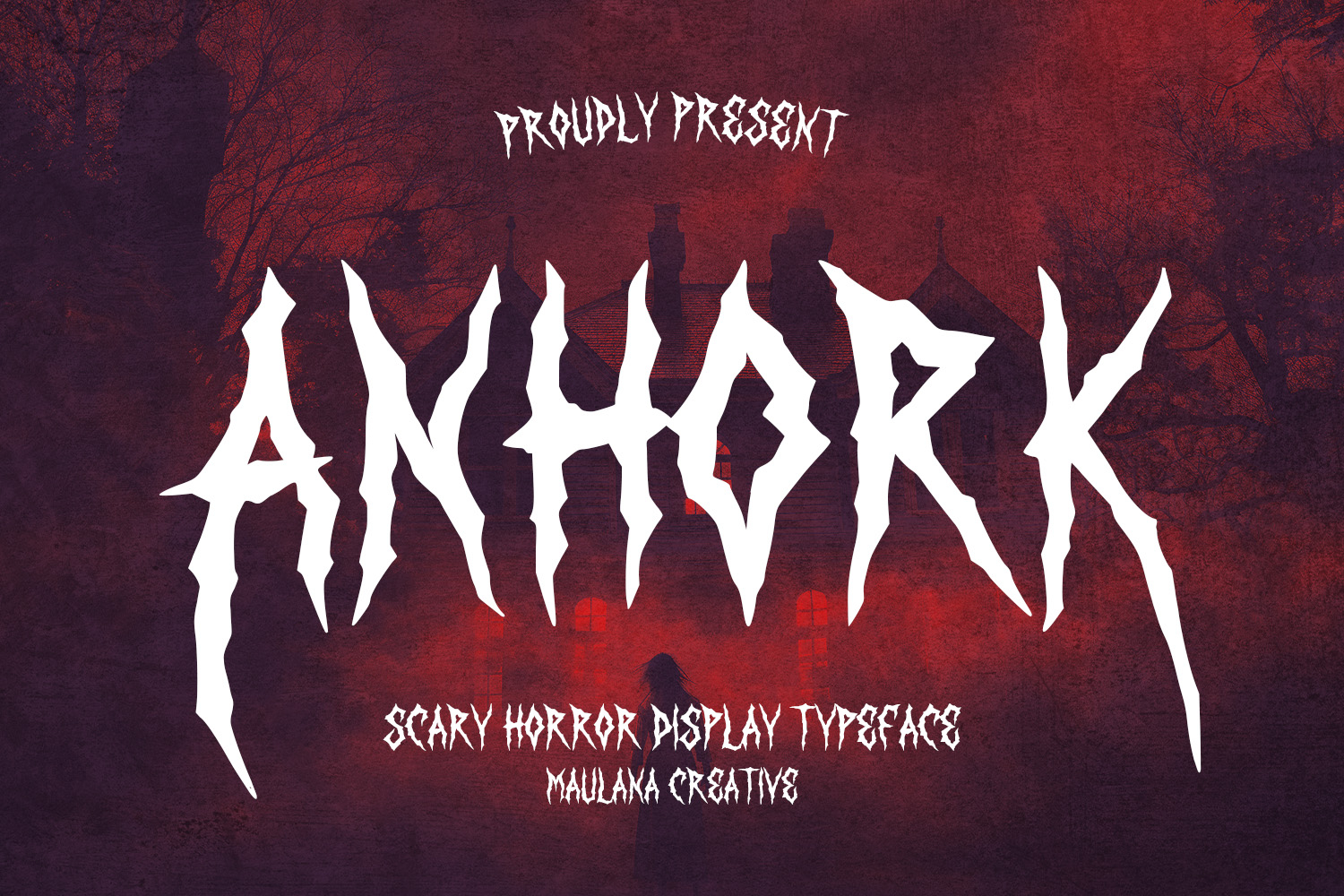
Anhork Bold Horror Display Font
Anhork is a terrifyingly bold horror display font designed to evoke fear, suspense, and dark mystery. With its jagged edges and sinister strokes, this typeface is perfect for horror movie posters, Halloween flyers, dark branding, scary book covers, creepy games, and haunted house promotions. The sharp, distorted shapes give Anhork a menacing that instantly grabs attention and creates spine-chilling vibes. Whether you’re designing for a thriller, metal band logo, or eerie social media graphics, Anhork brings the perfect balance of fear and style. Make your designs unforgettable with a font that screams horror Anhork.
- Alternate Style